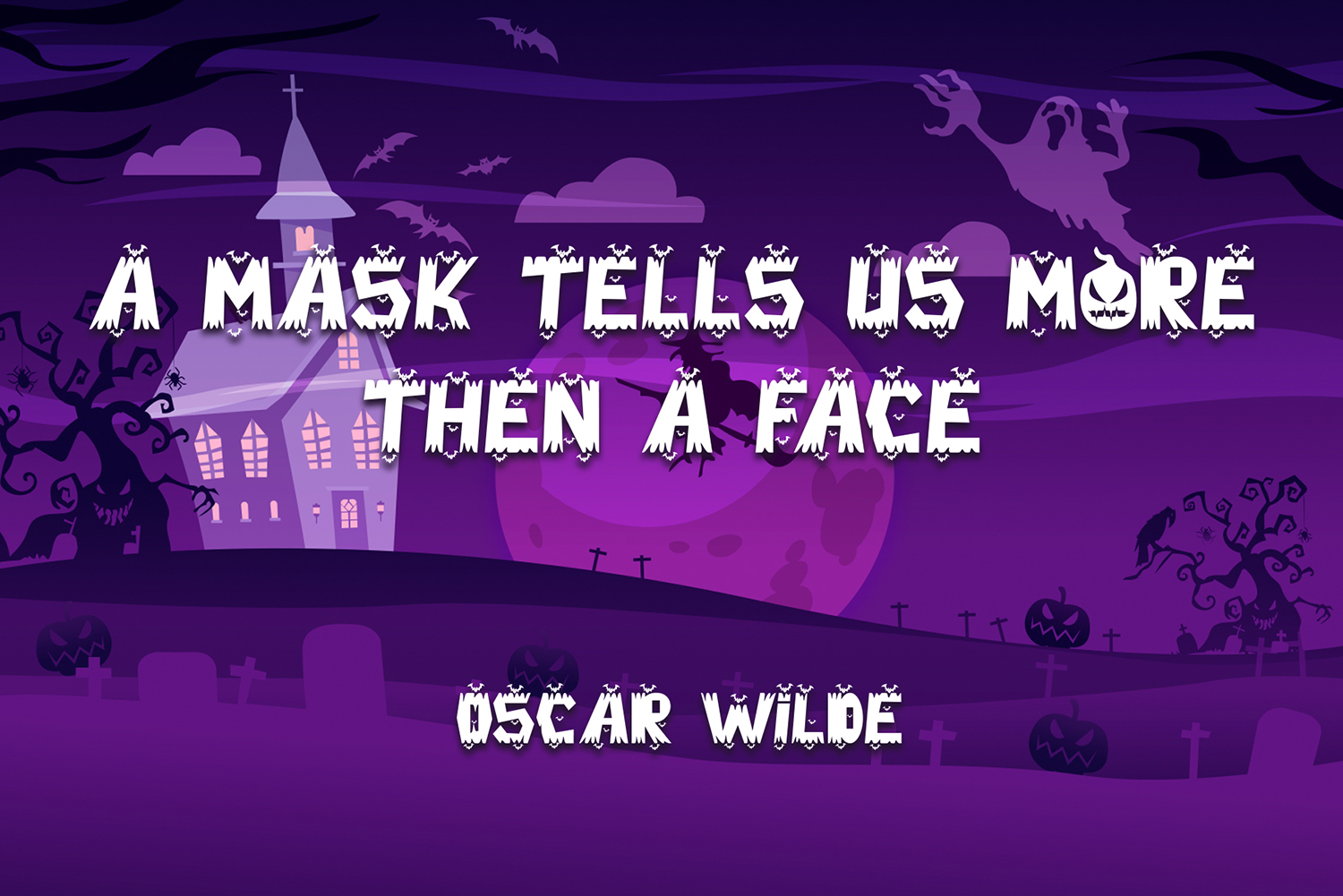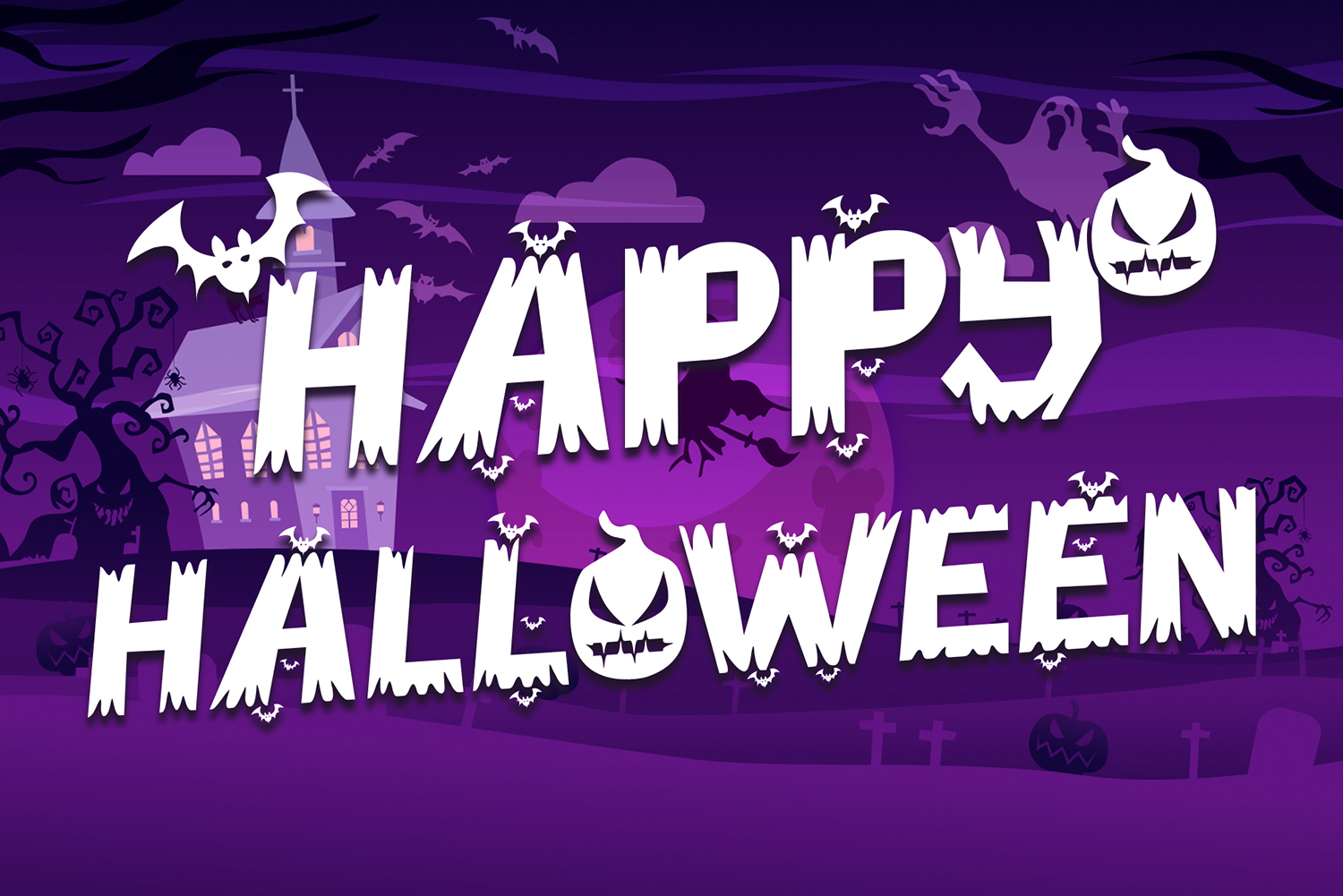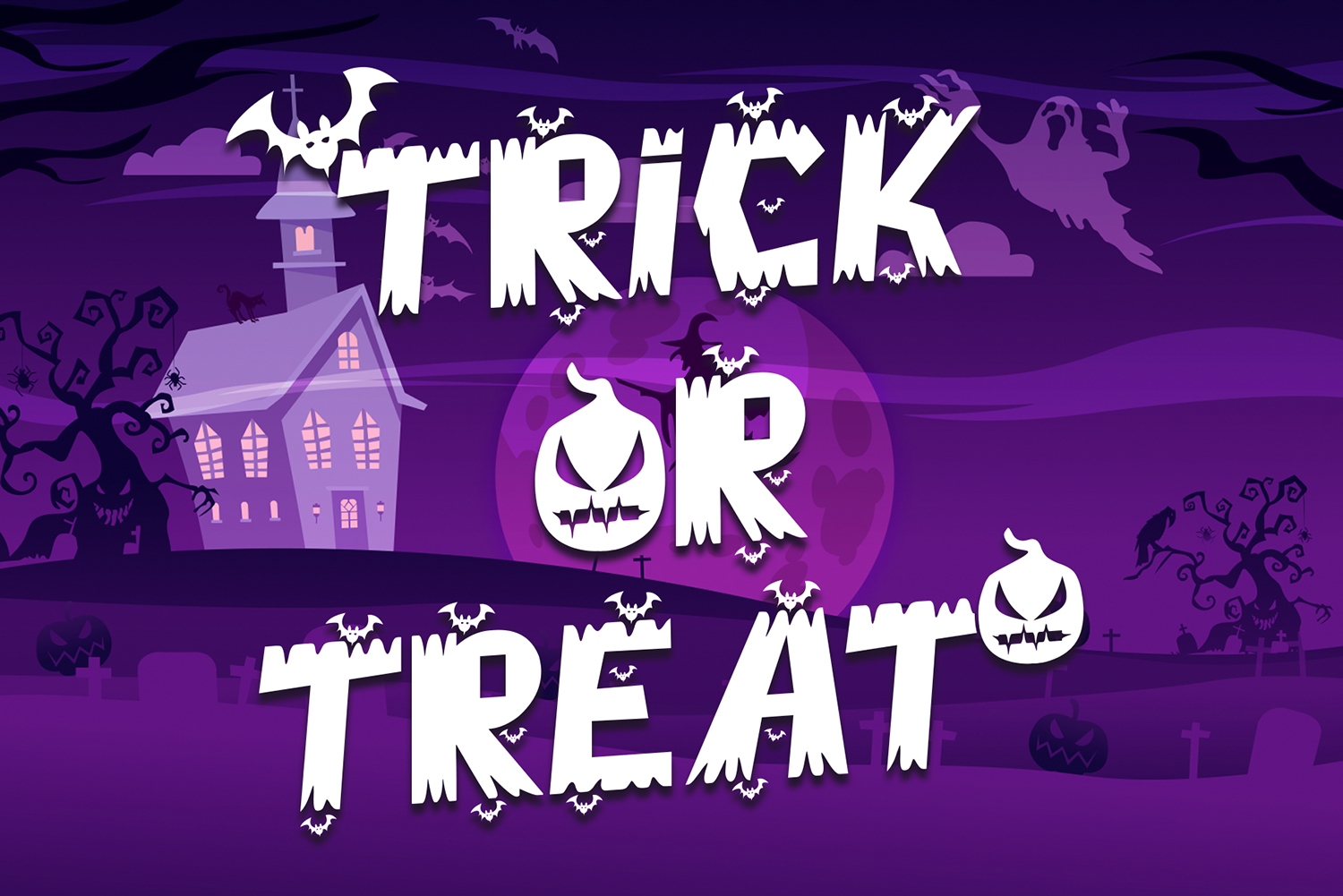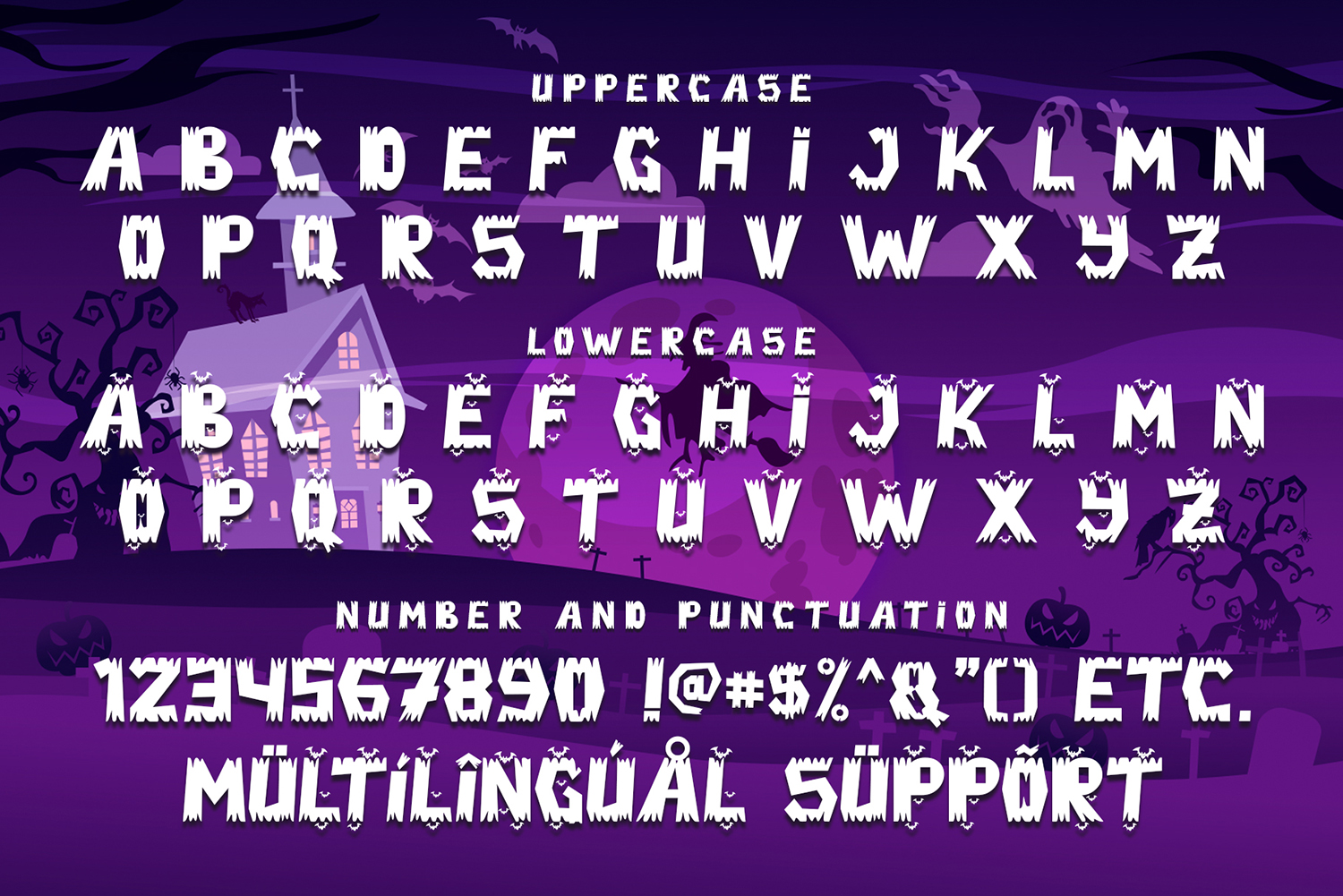
Ghost Zone Free Font
Ghost Zone Free Font is a fun, quirky and spooky decorative font. This free typeface was designed by a talented Alif Ryan Zulfikar. If you like it don’t forget to check out the full version.